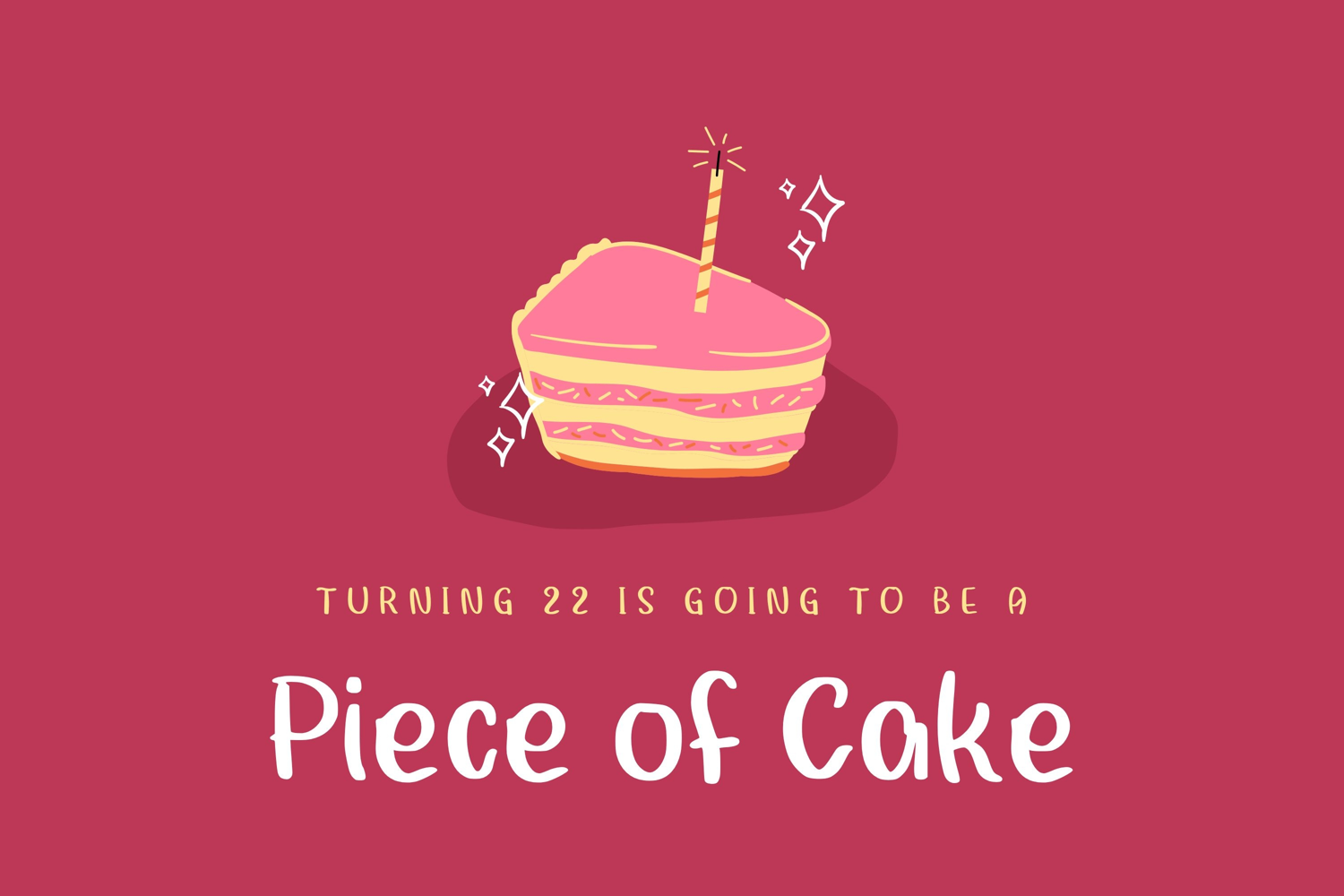
White Pinky
Experience the magic of our “Curly Hair” font, meticulously crafted to add a playful touch to your greeting cards and letters. This artistically charming font enhances your messages with its whimsical curls and soft, gentle lines. It's an innovative twist on classic typography, seamlessly blending elegance with lightheartedness. Perfect for adding a dash of joy and beauty to your design, the "Curly Hair" font is not just a choice; it's a statement. Enrich your narrative with this irresistibly attractive, one-of-a-kind font!